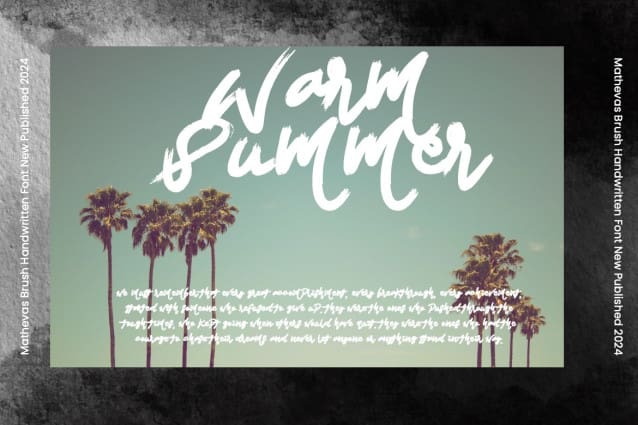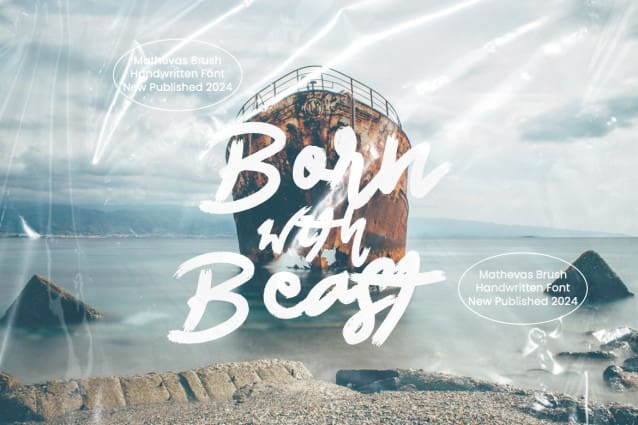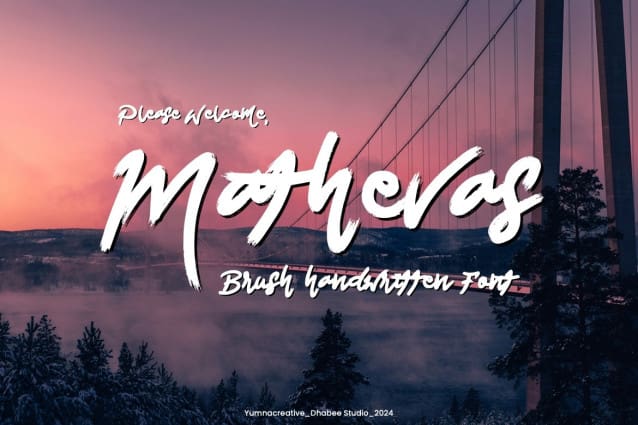
Mathevas Brush Font
Mathevas Brush Font is natural dry brush font. It’s perfect for logos, quotes, posters, playful lettering, for clothing, and every other design which needs an unique touch.